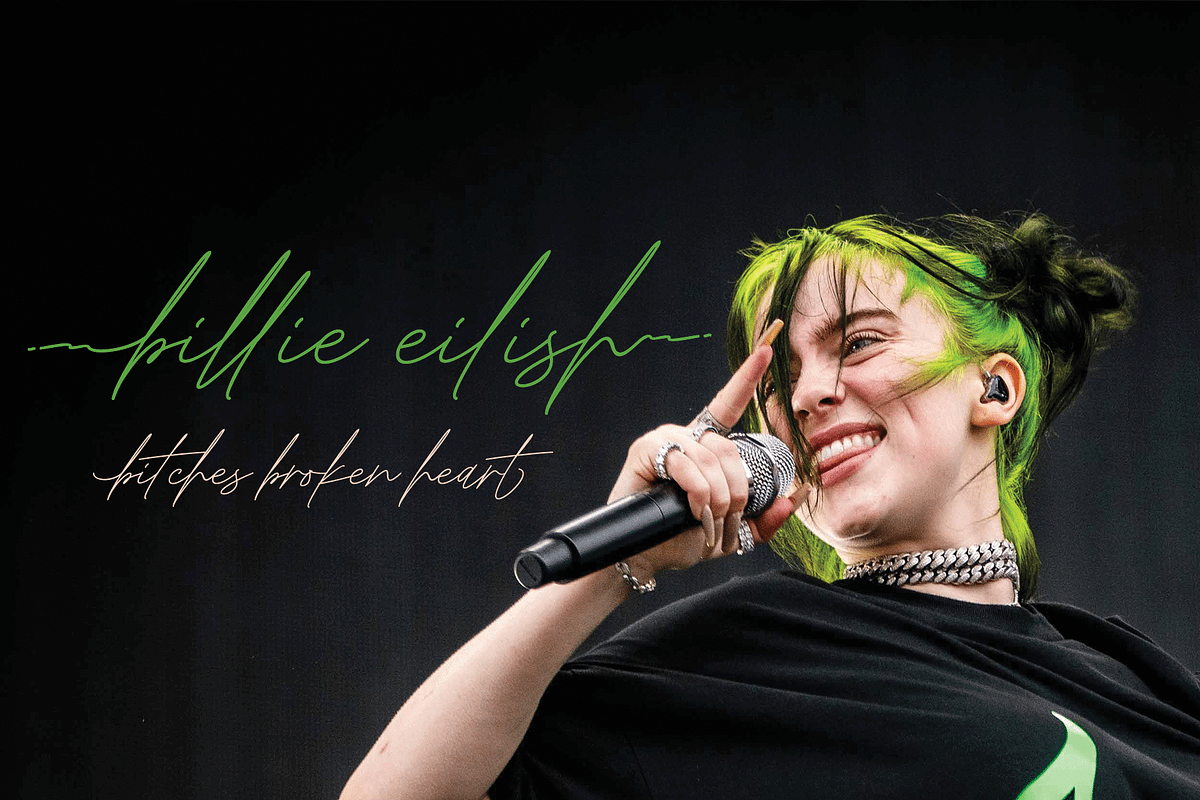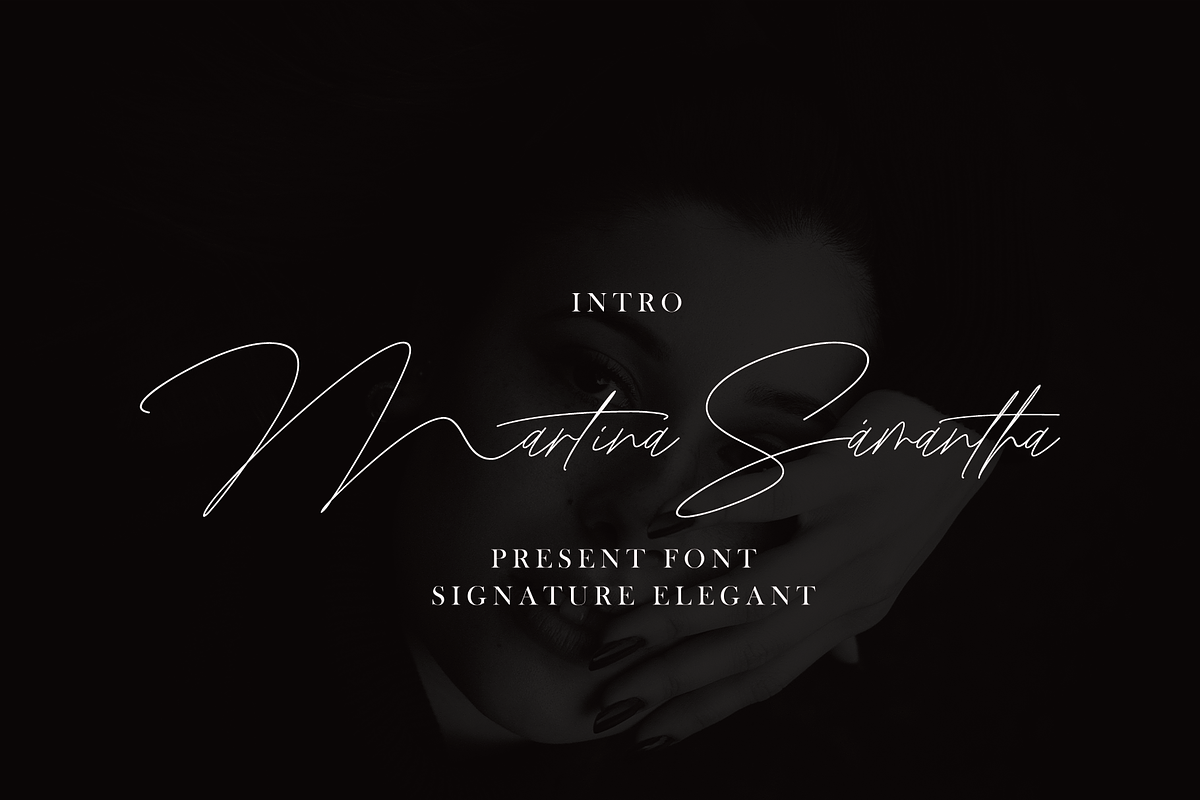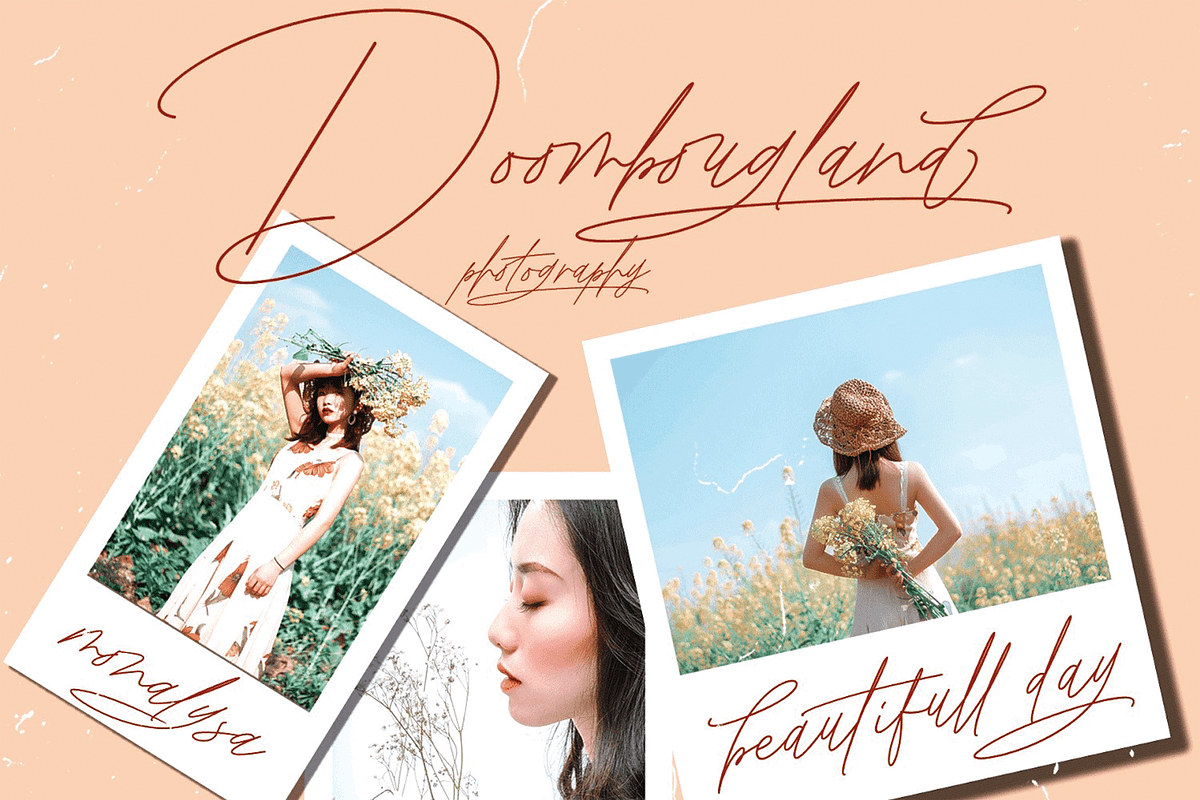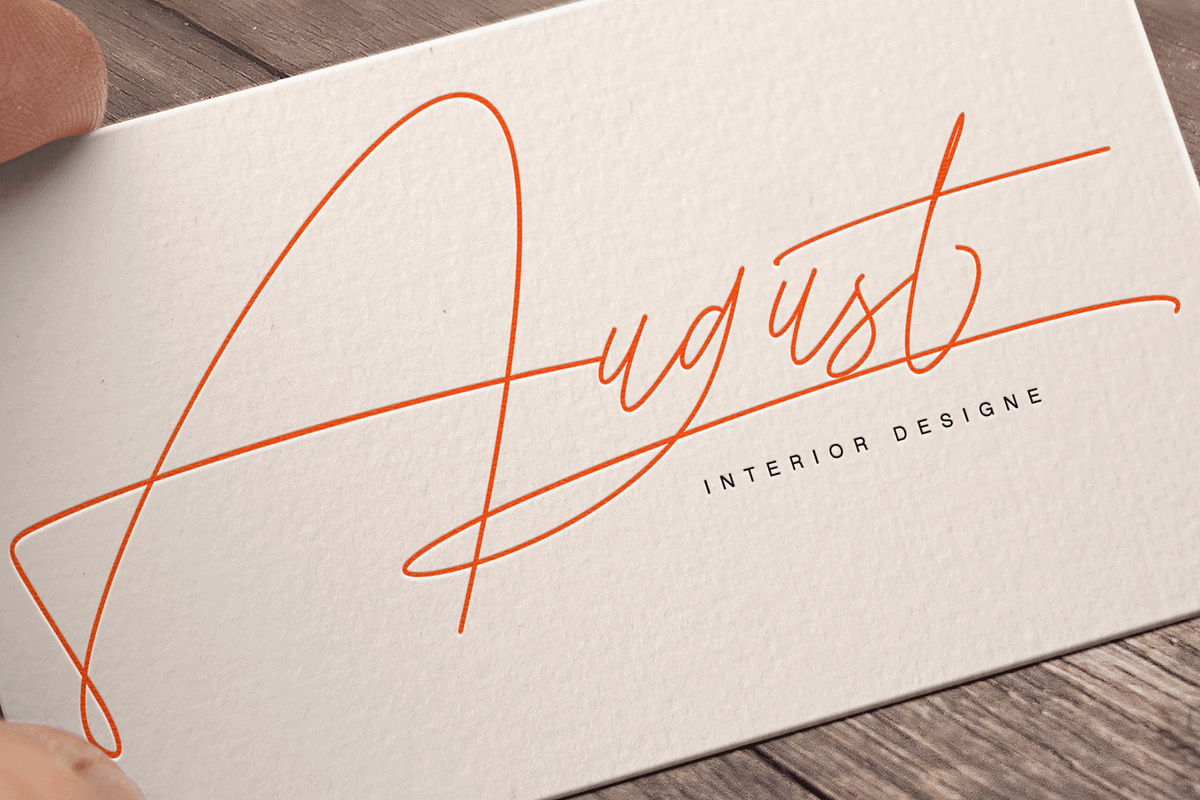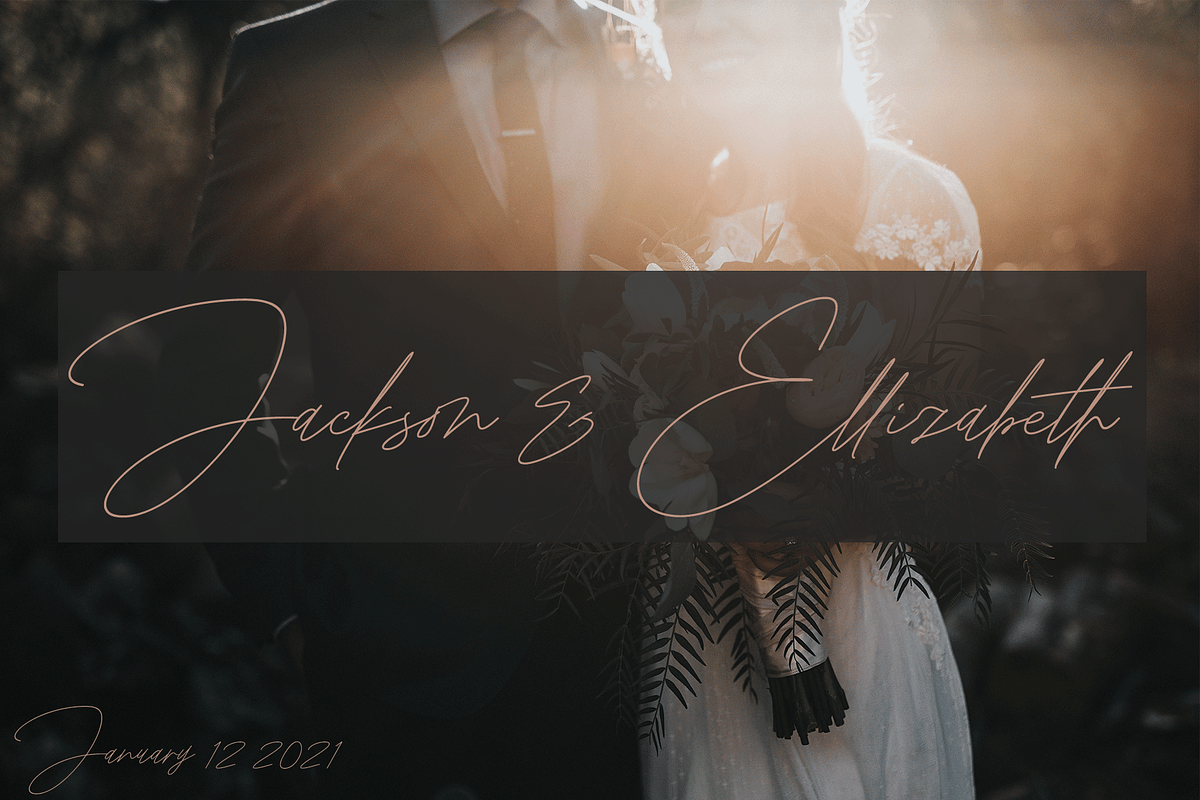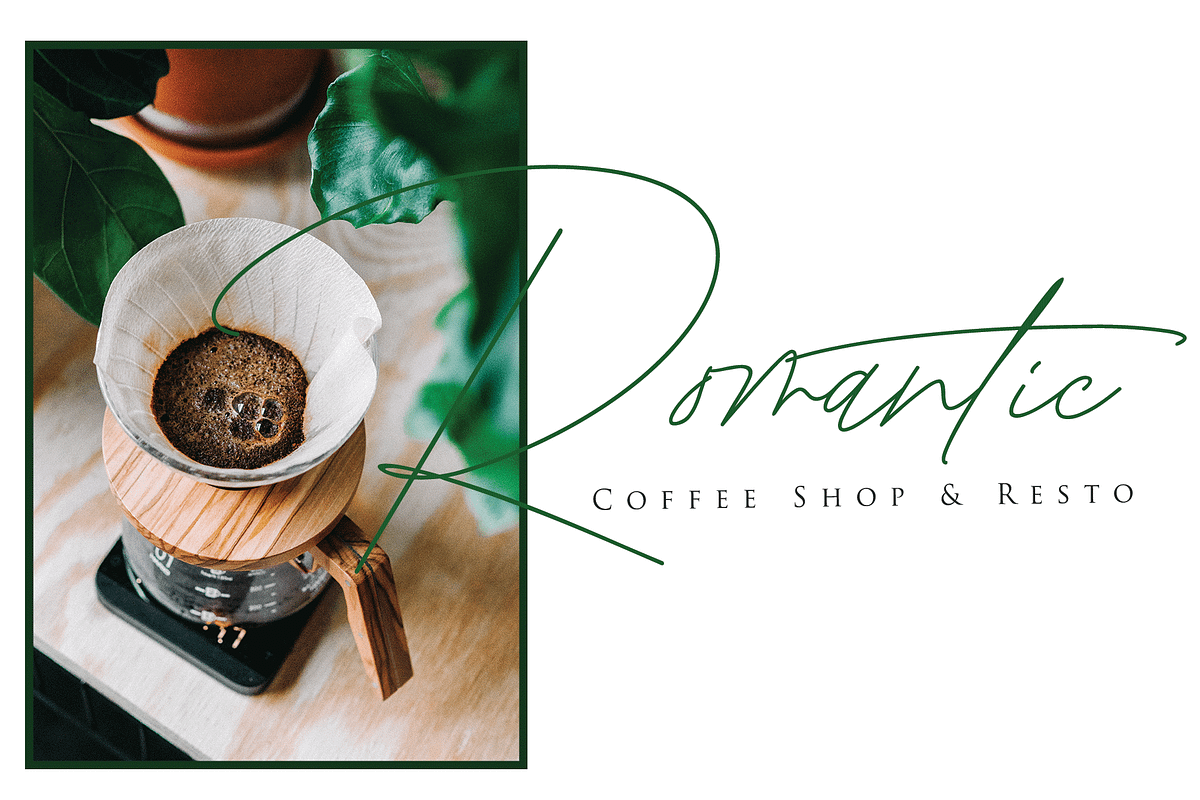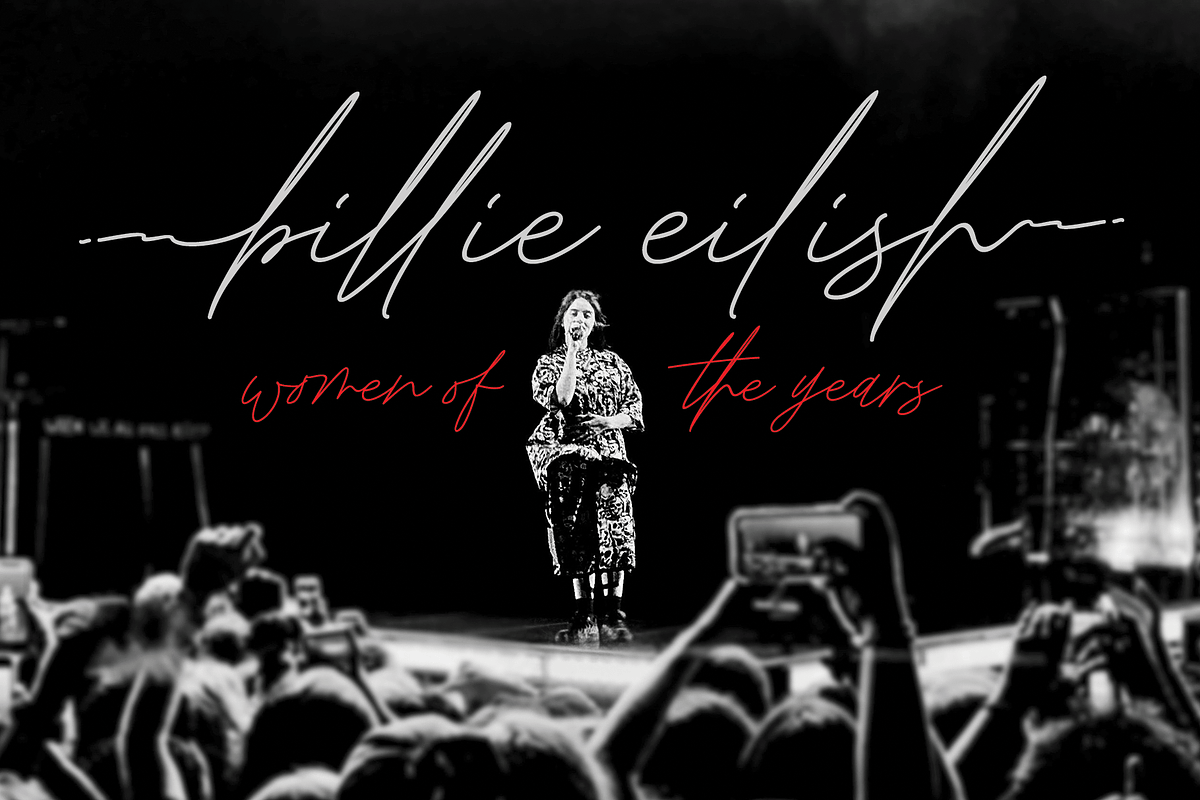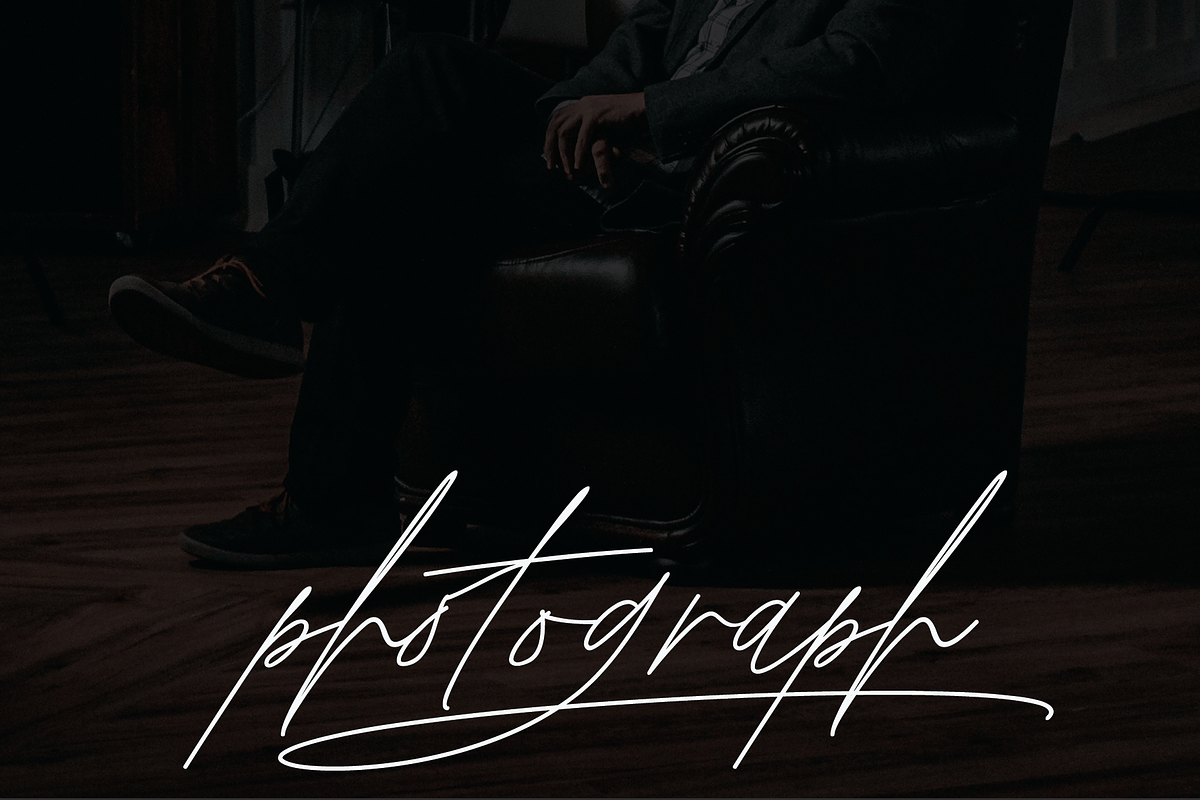
Martina Samantha
INTRO Martina Samantha, is another lovely modern signature and mono line font, which is combining the style of classic signature with an modern style. combines from copperplate to contemporary typeface with a dancing baseline, modern and elegant touch. including alternates, and ligatures.